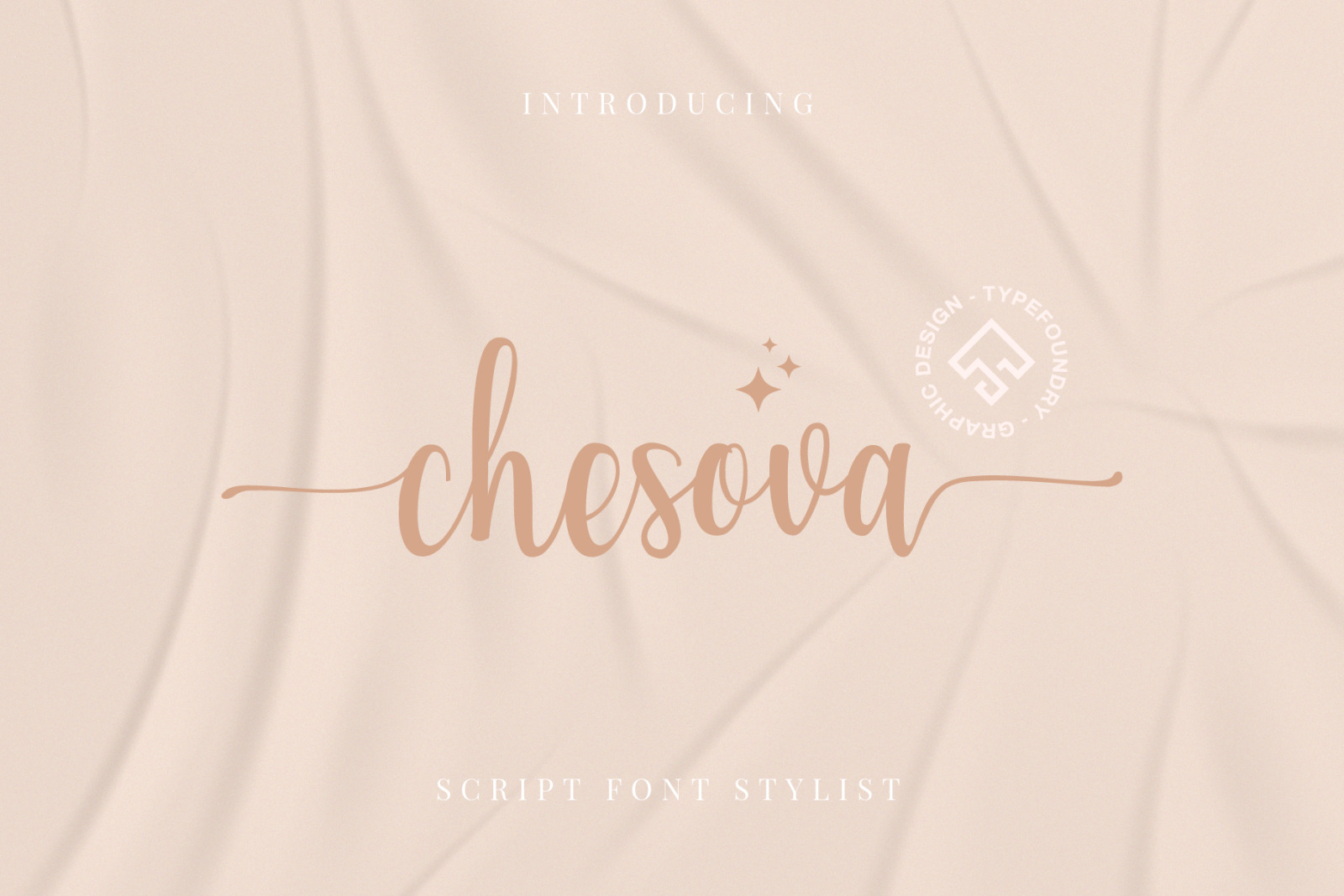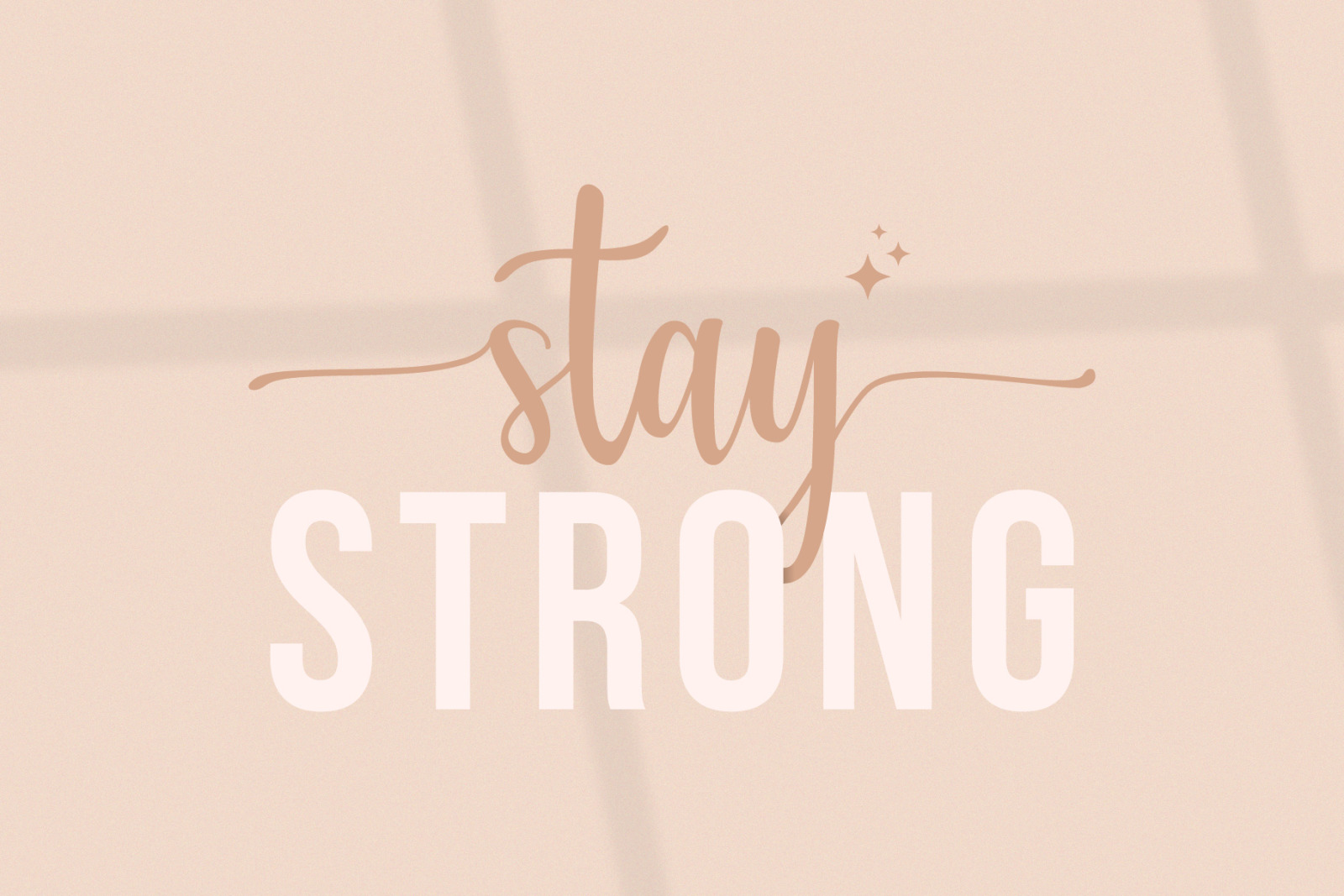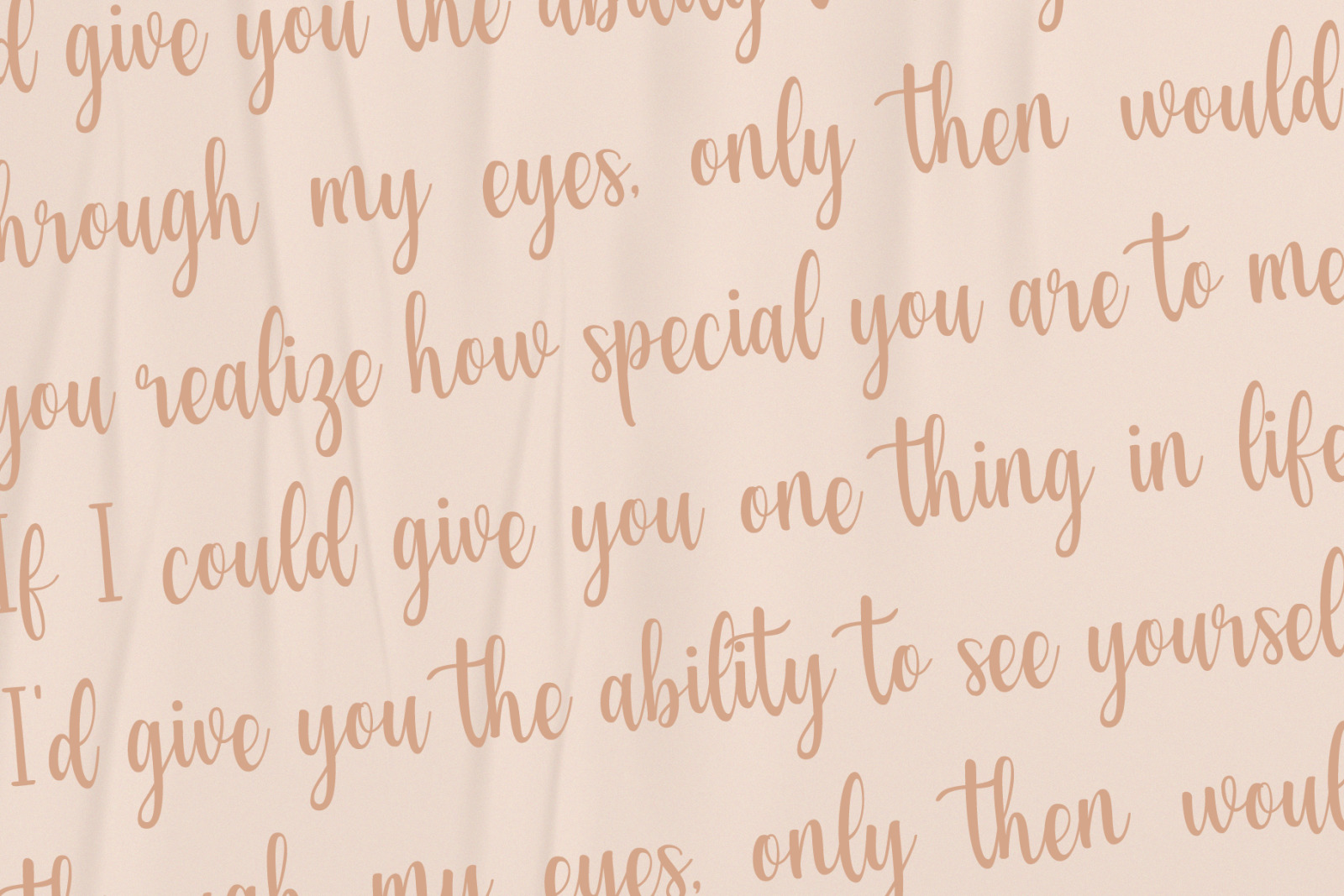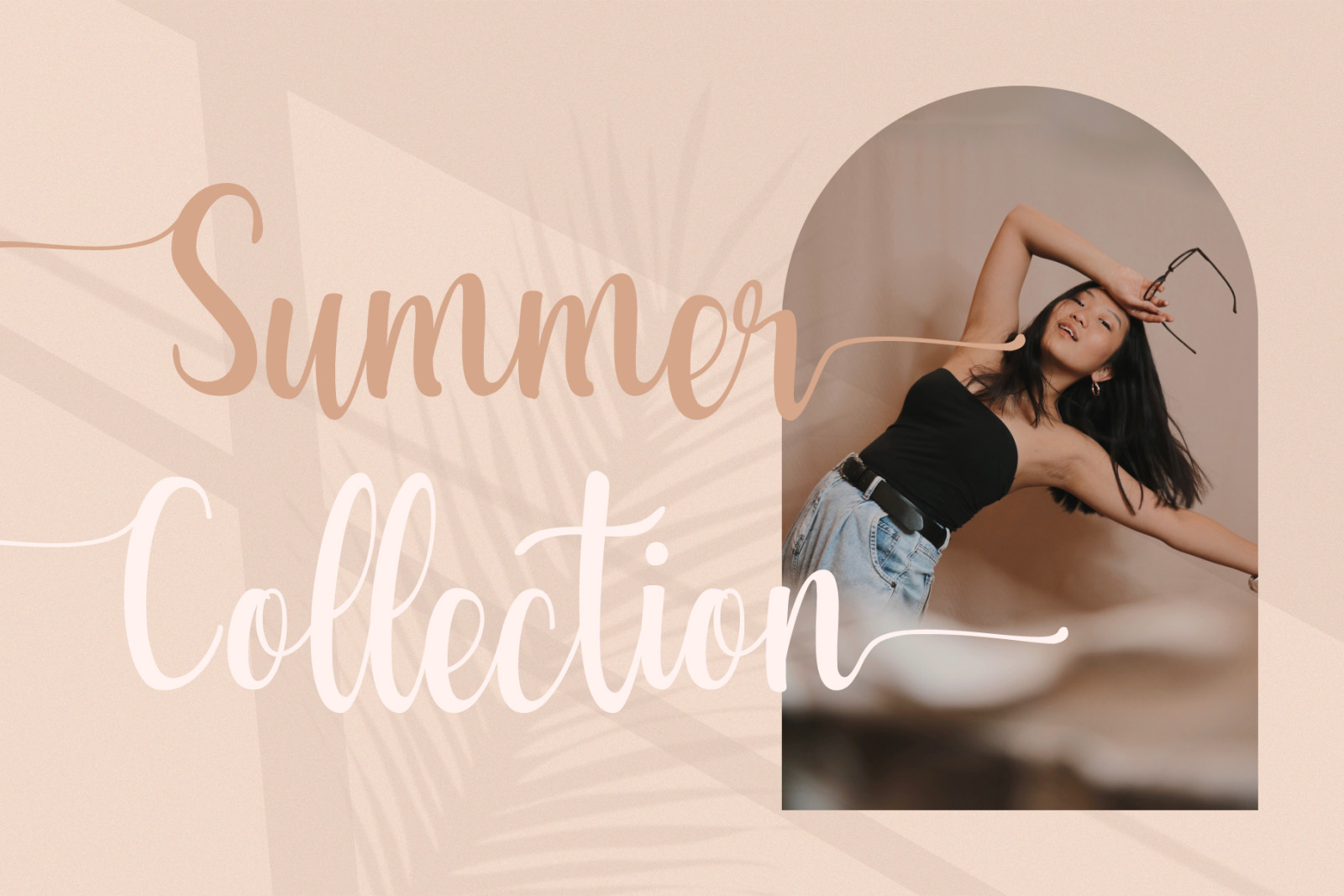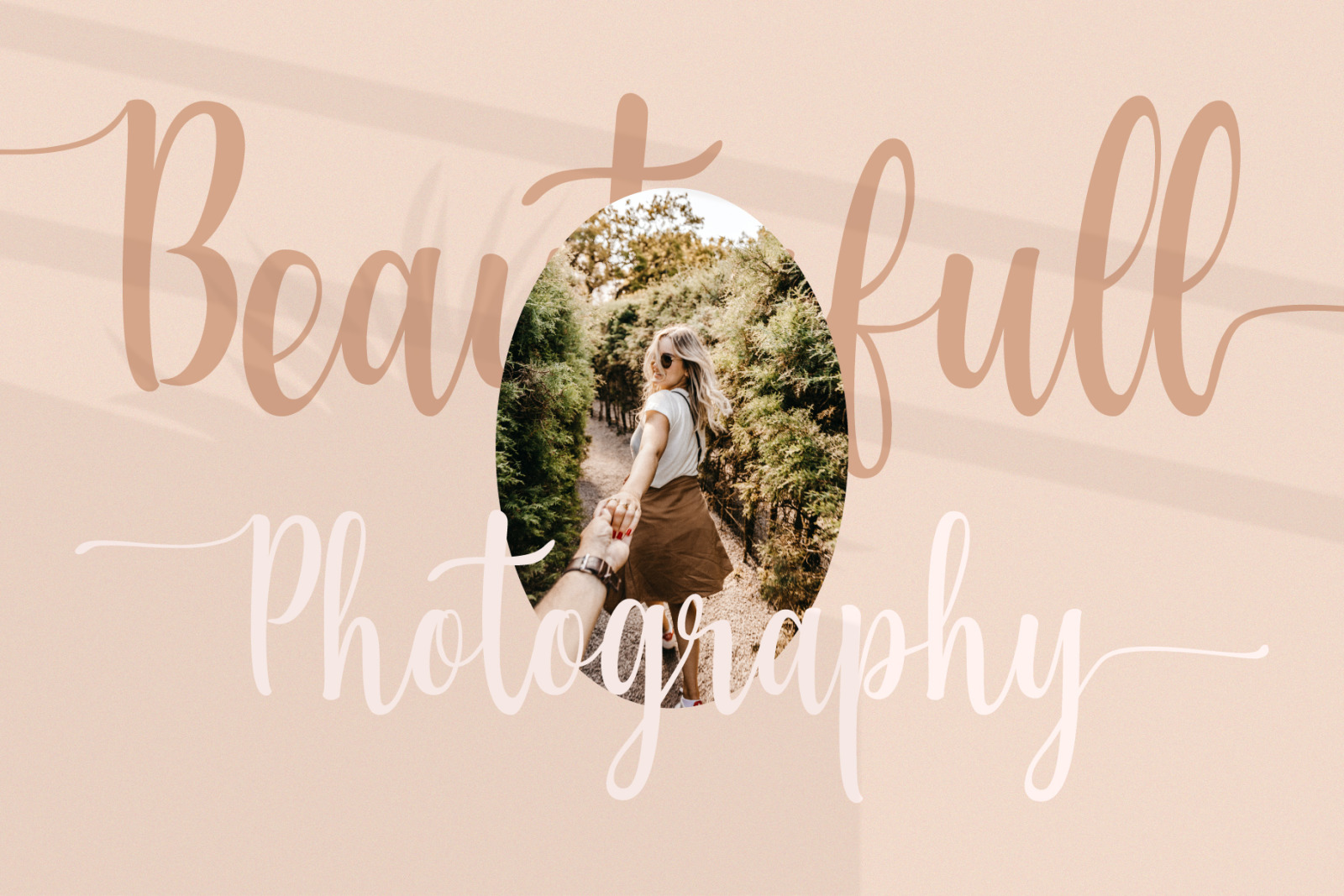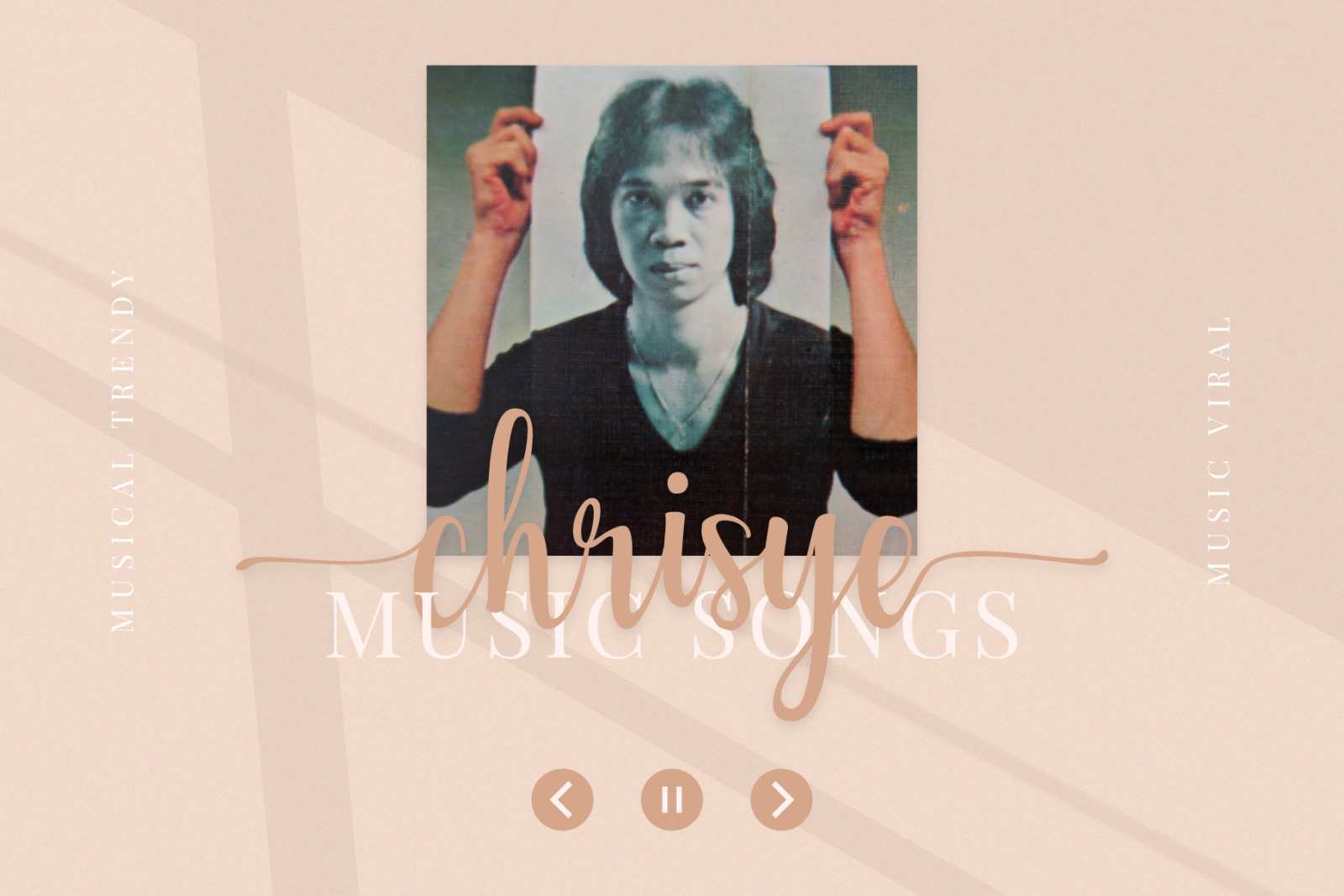
Chesova Font
Chesova is an elegant script Vintage font with a contemporary atmosphere and impeccable form, inspired by timeless classic calligraphy. Not too thin and not too thick, balanced and varied, this font was designed to enhance the beauty of your projects.